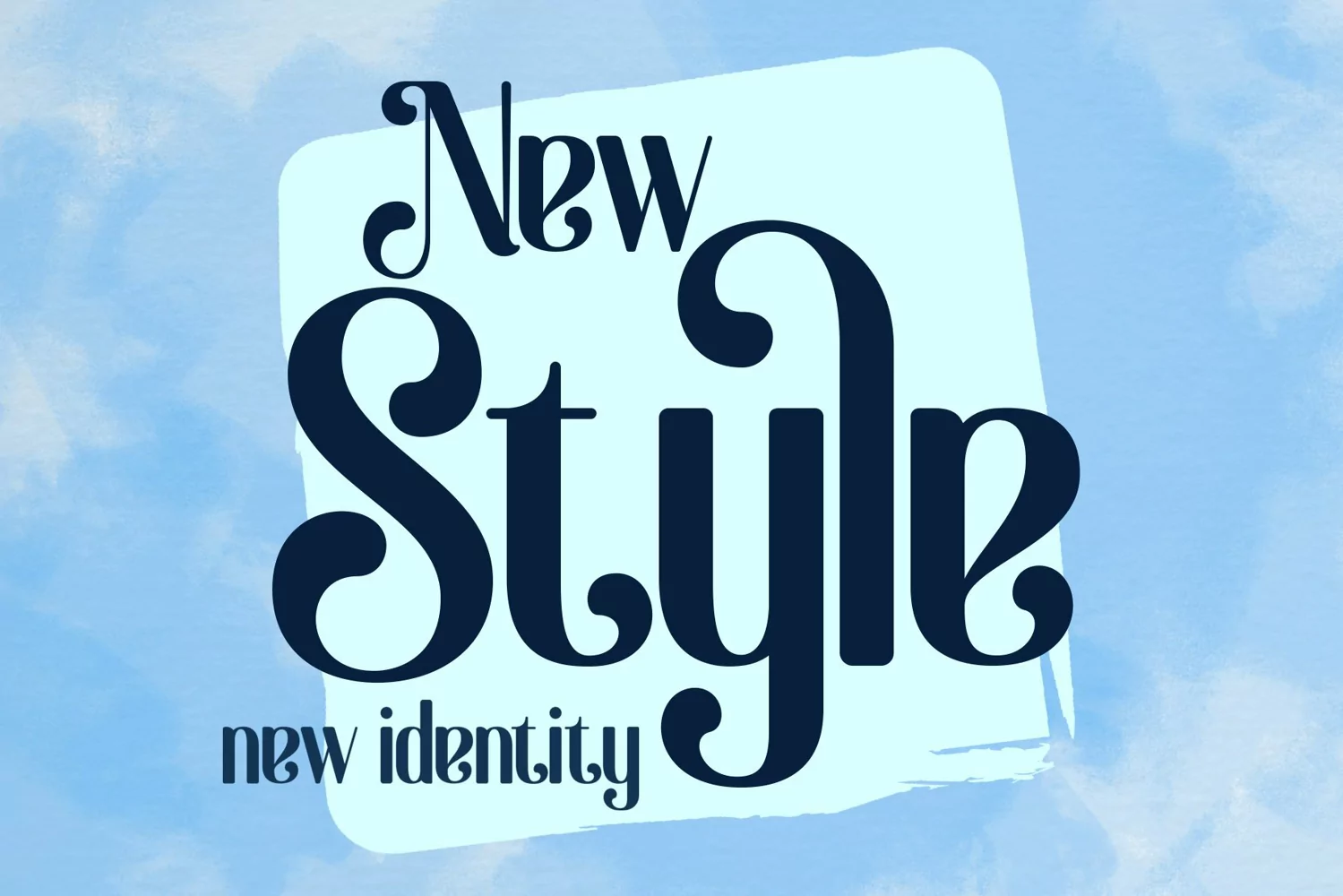
Sloopy Joe
Sloopy Joe font is a decorative font that was inspired by logo design from my son toy's cardbox, and was crafted by hand to add a natural handmade feeling and i make it clean with pentool.
If you looking for a new style decorative font for your title or even branding and logotype, this font is a great choice for that purpose.
Sloopy Joe font is very good looking in logotype, labels, decorative lettering, playful design, product packaging, invitation titled, advertising and others.